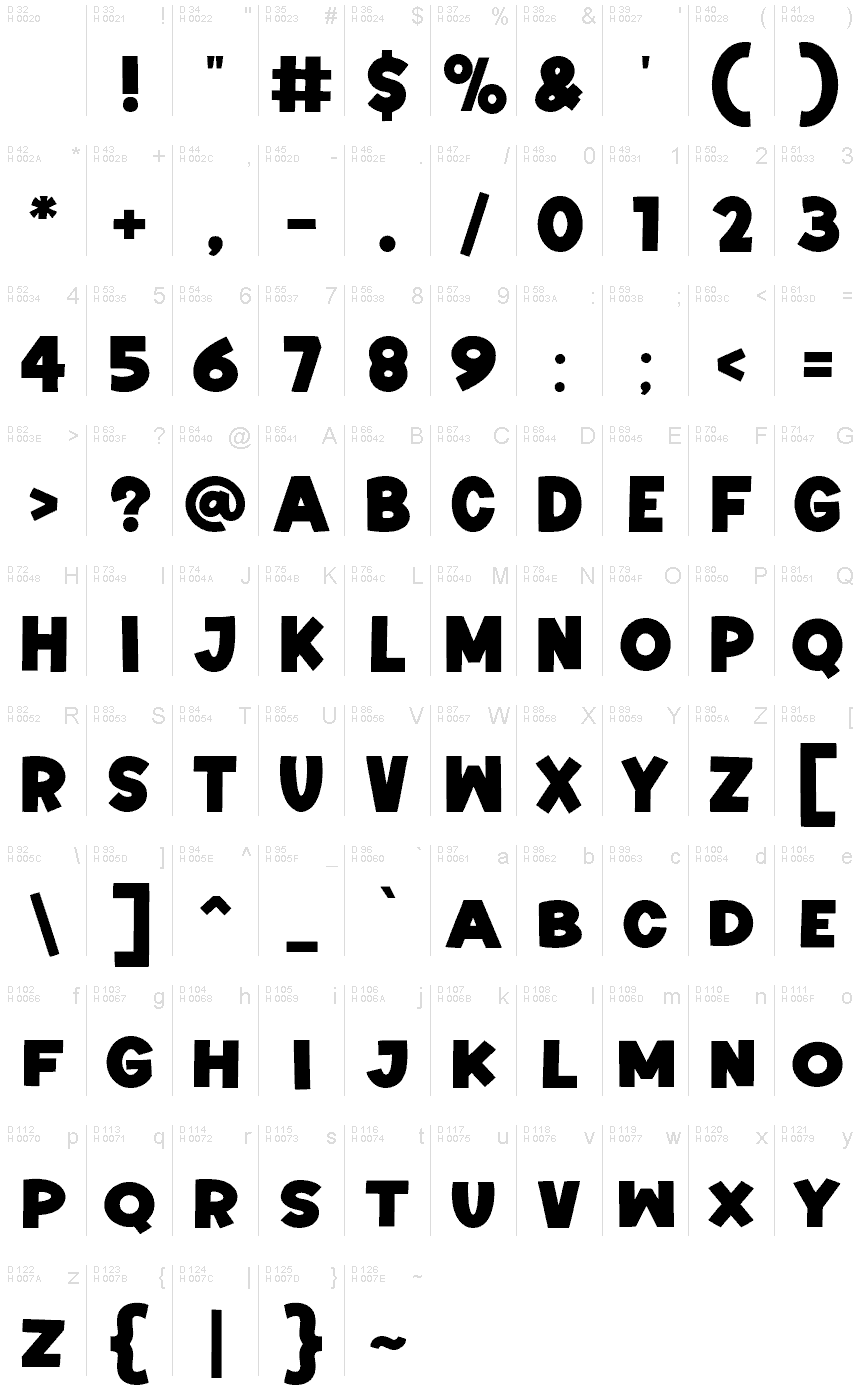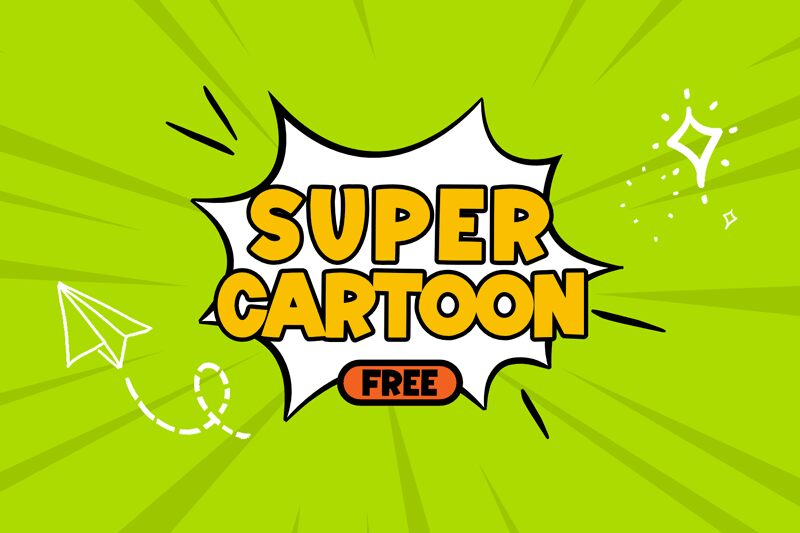
Super Cartoon
Super Cartoon font by fsuarez913 is a bold, vibrant display typeface with a cartoon style. Its retro-inspired design and geometric shapes combine to create an inviting visual appeal that grabs attention instantly. The font’s rounded edges and thick strokes evoke an appealing playful essence, ideal for bringing energy and excitement into your projects.
This bold cartoon font is free and perfect for packaging, posters, commercials, social media posts, eBooks covers, infographics, business cards, banners, titles in children’s books or magazines. Use it to upgrade game interfaces or any novelty project that requires a fun touch!